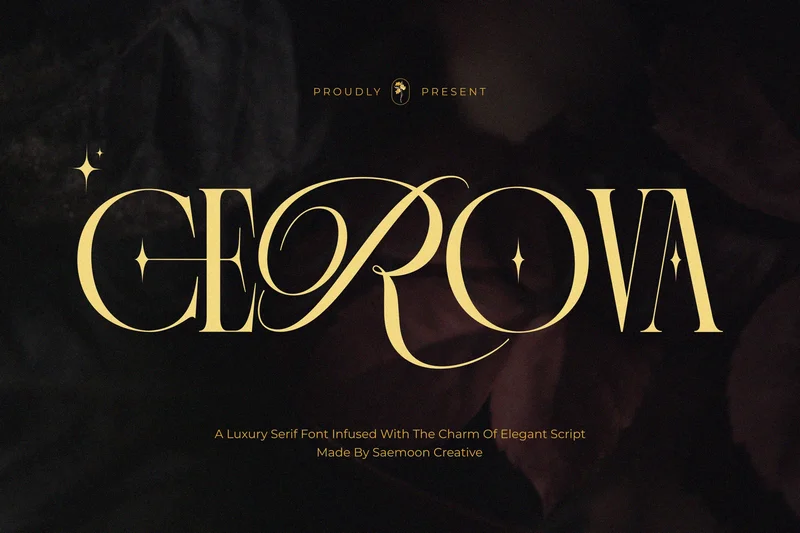
Cerova
Cerova – Luxury Serif Font with Script Capital Alternates
Cerova is a luxury serif font that combines timeless elegance with artistic details. Featuring graceful script-style capital alternates, Cerova brings a refined and exclusive look, perfect for creating logos, branding identities, product packaging, invitations, and editorial designs.
With its balance of classic serif structure and stylish decorative touches, Cerova delivers versatility for both modern and sophisticated projects. It’s the ideal choice for brands that want to stand out with elegance and confidence.
Script-style Capital Alternates
Ligatures & Decorative Characters
Make your design shine with the luxury and beauty of Cerova